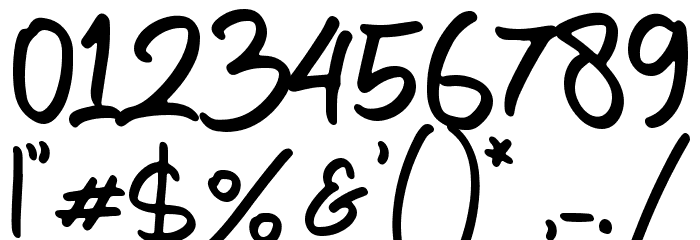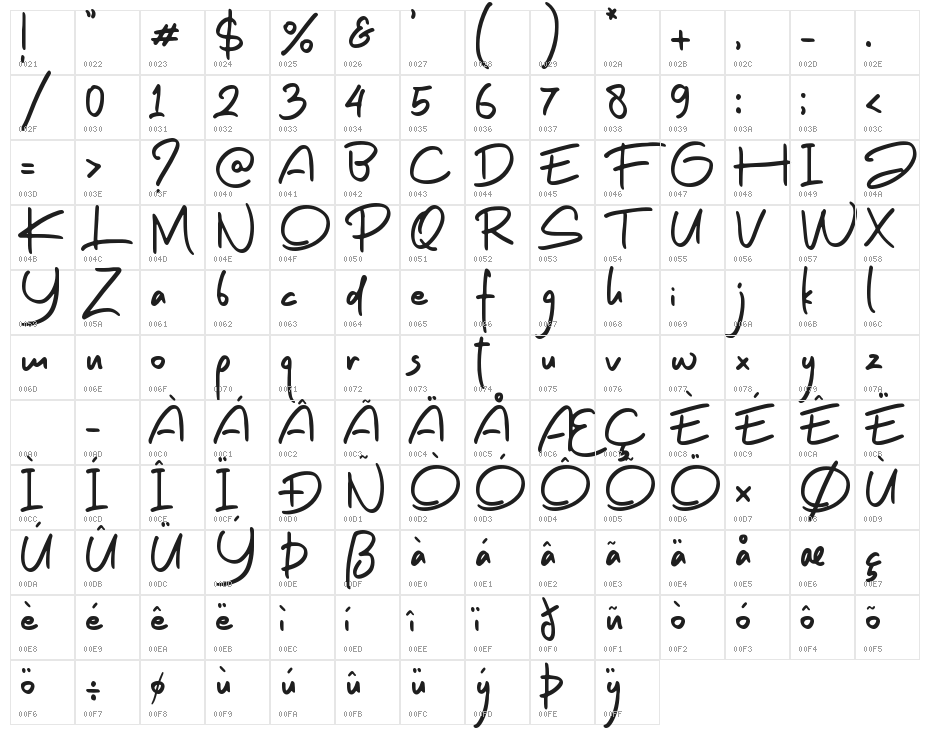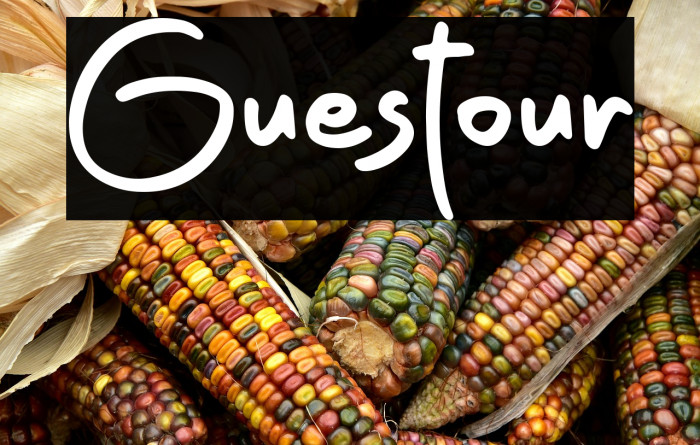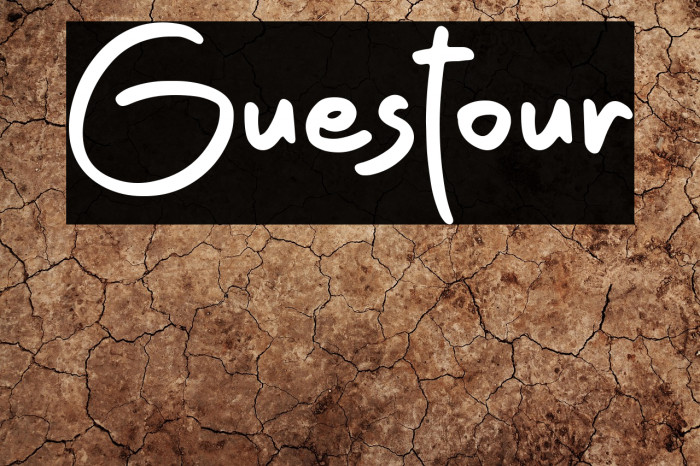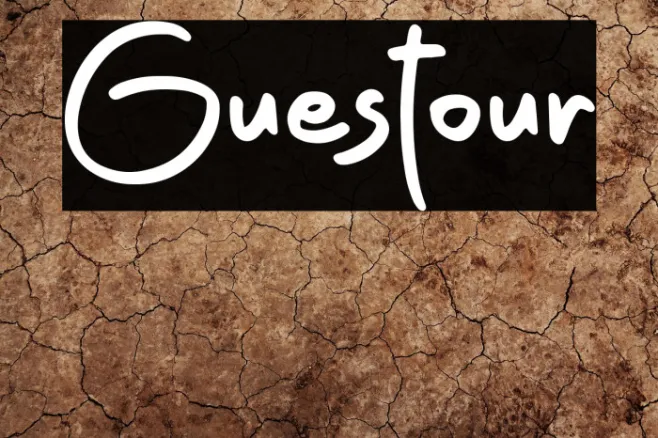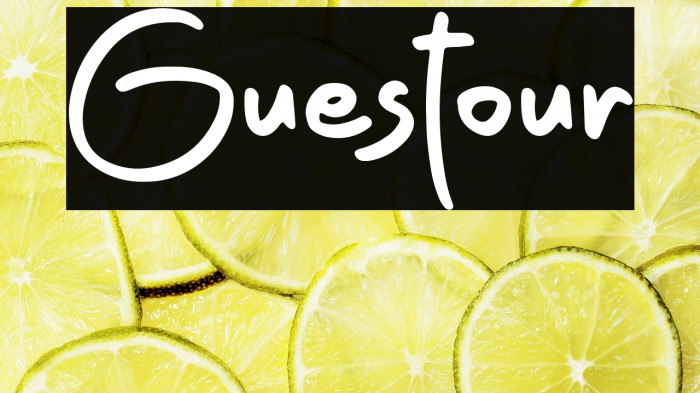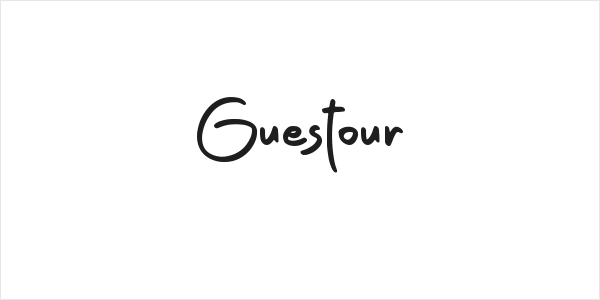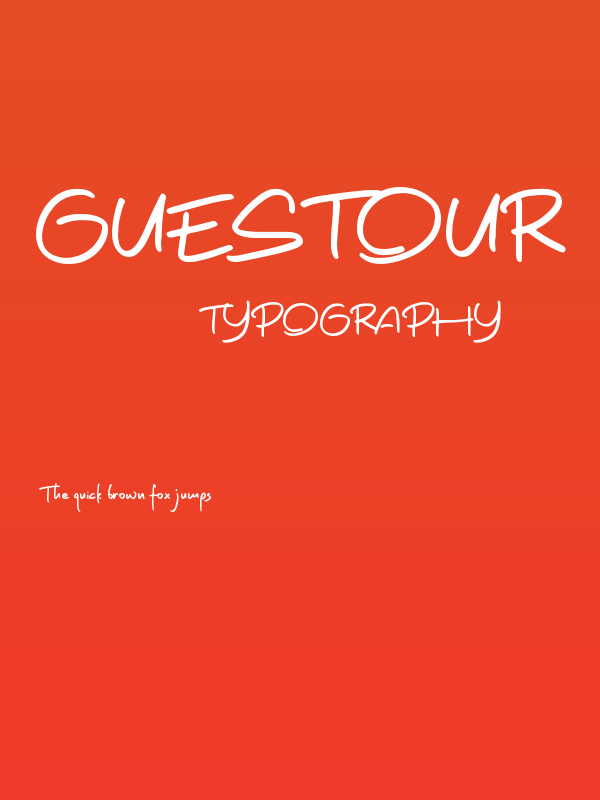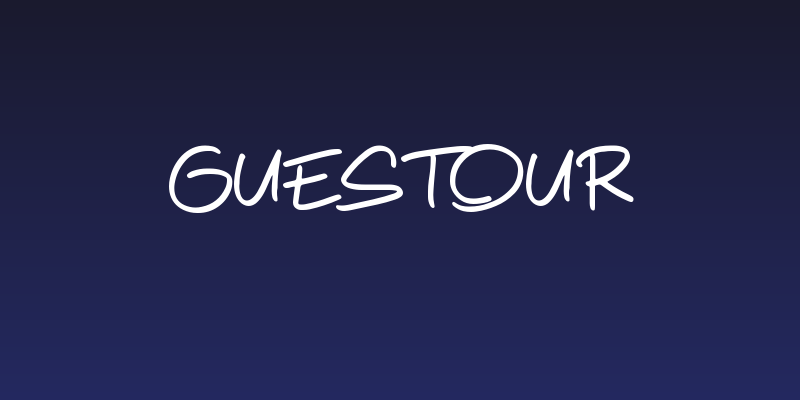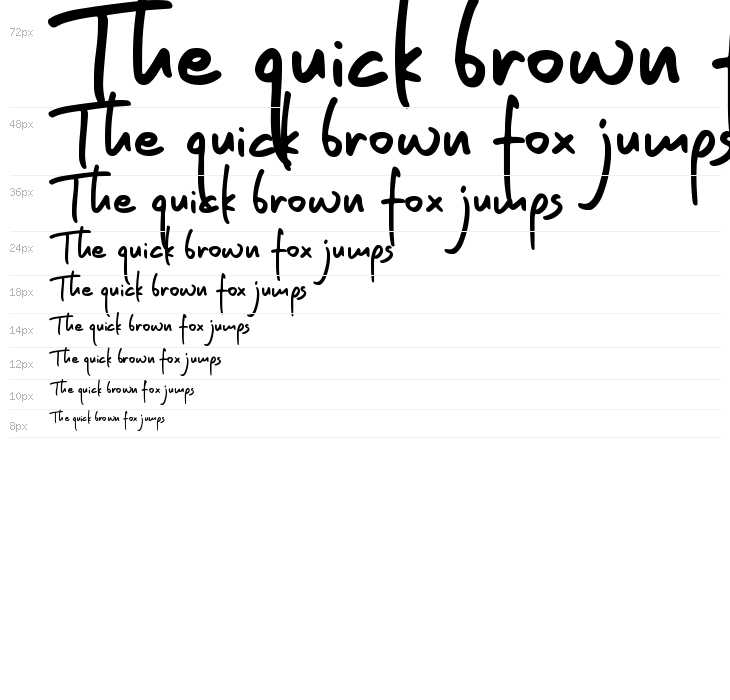
Guestour Font
Guestour Description
This font features a playful and dynamic handwritten style, characterized by its fluid and casual strokes. The uppercase letters are bold and slightly slanted, giving a sense of movement and energy. The lowercase letters maintain a consistent flow, with rounded edges and varying stroke thickness that add to its informal charm. The numerals are distinct and easy to read, while the special characters complement the overall style with their quirky and expressive forms. This font exudes a youthful and creative vibe, making it suitable for projects that require a personal touch.
| Proposed Projects | Ideal for greeting cards, invitations, children's books, and creative branding projects. |